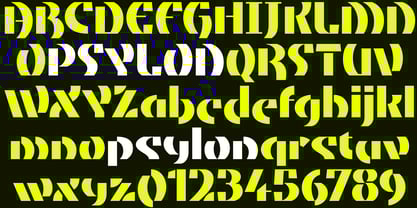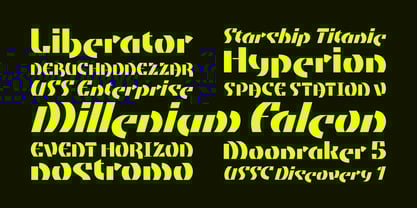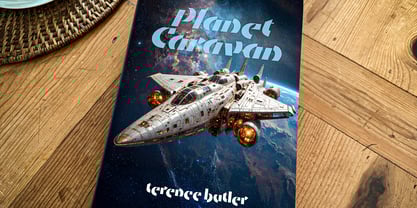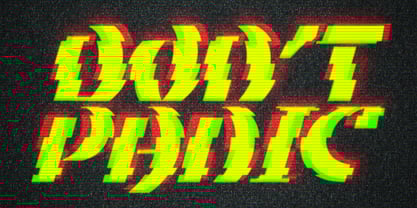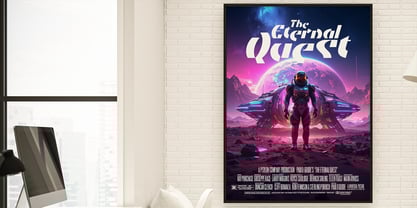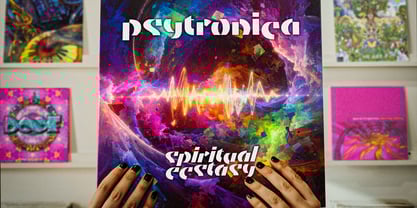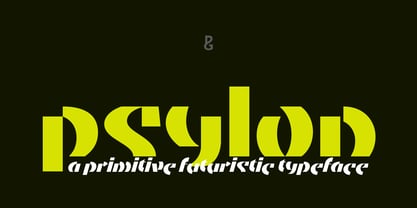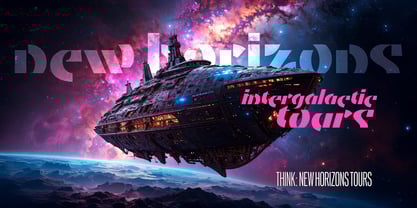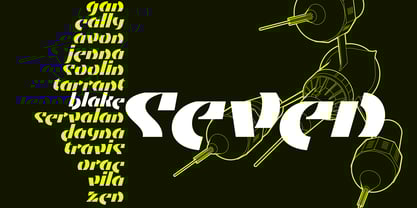
Psylon
by Paulo Goode
Psylon is a primitive futuristic typeface that has been specifically designed for branding and titling purposes. Fair enough, Paulo, but what’s with the oxymoron? Well, Psylon is primitive in its construction – you can see that its marks are simplistic, as if drawn with a broad-nibbed pen. Yet, its construction also evokes an aura of advanced technology and futuristic applications – perfect for your next sci-fi book cover, film title, hi-tec brand and so on.
Integral to Psylon’s unique design and personality is its fluctuating x-height which adds quirkiness to anything you type in lowercase. These distinctive fonts should be used at large sizes, making them perfect for use in your headlines, signage, logotype, titles, and branding designs.